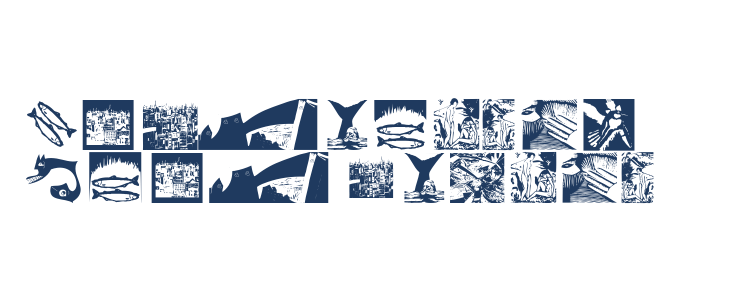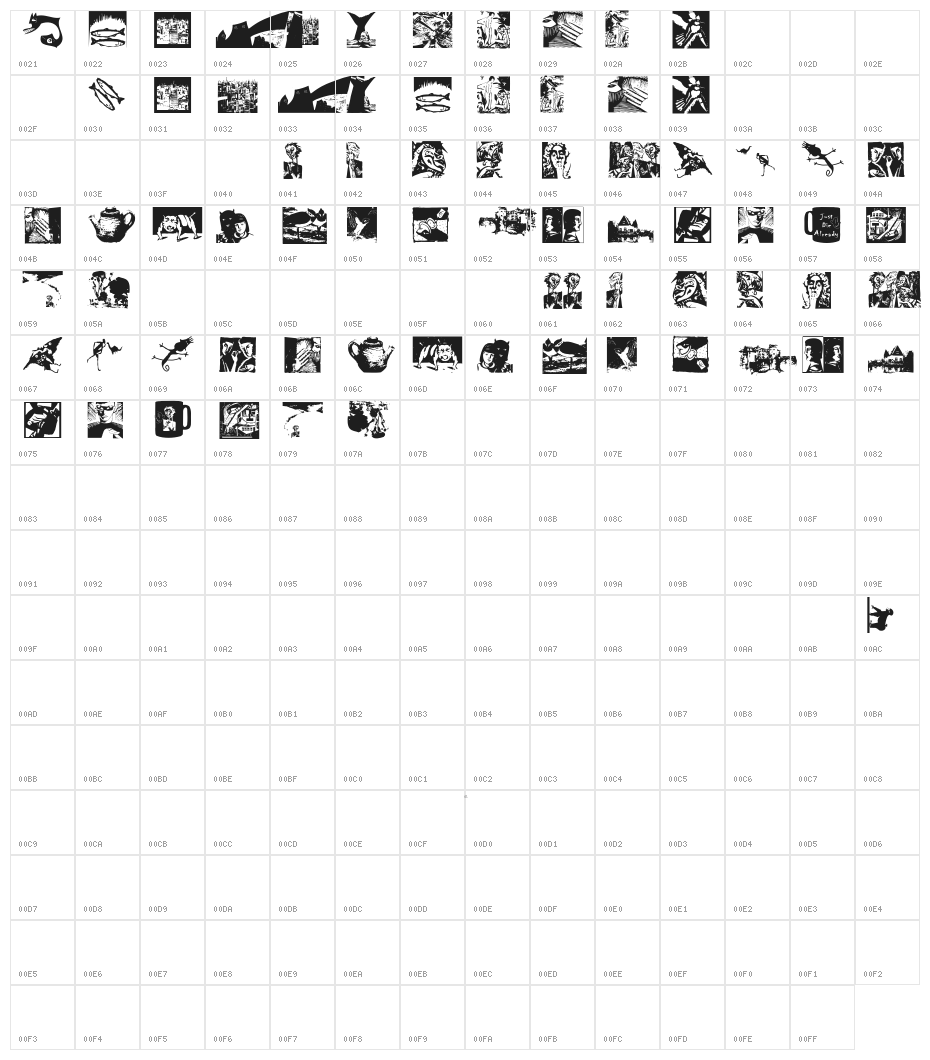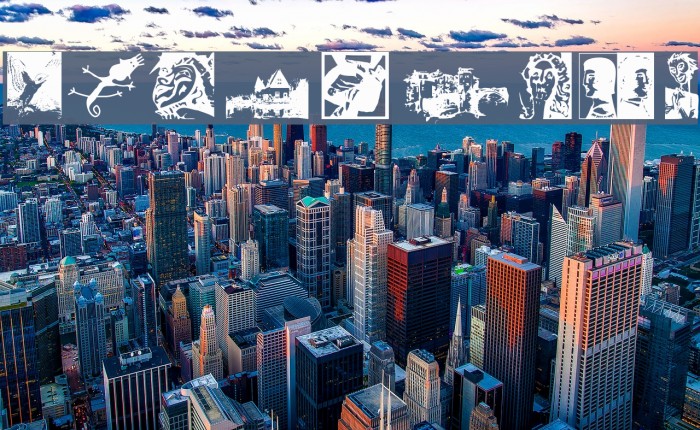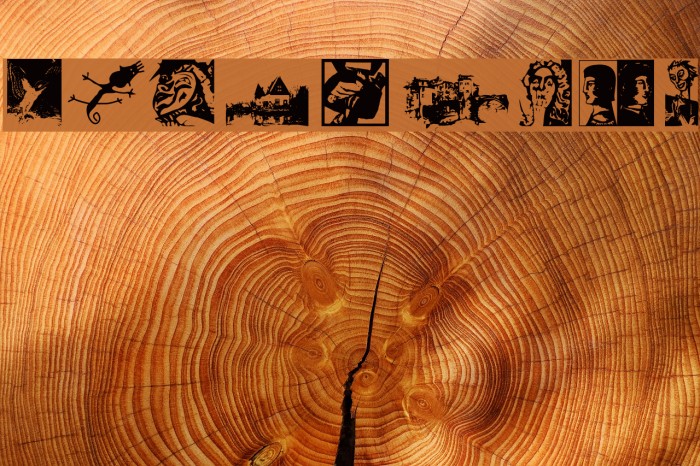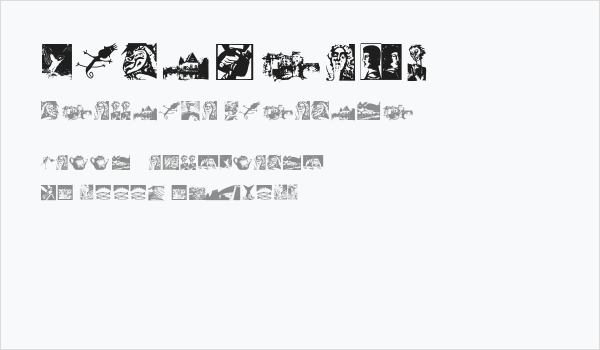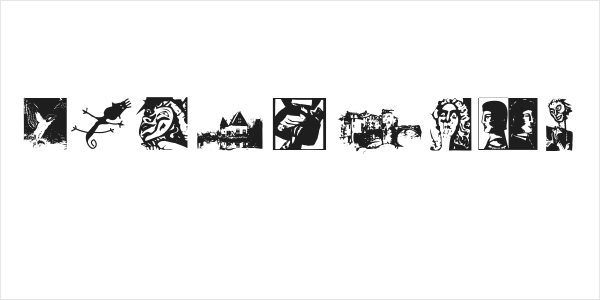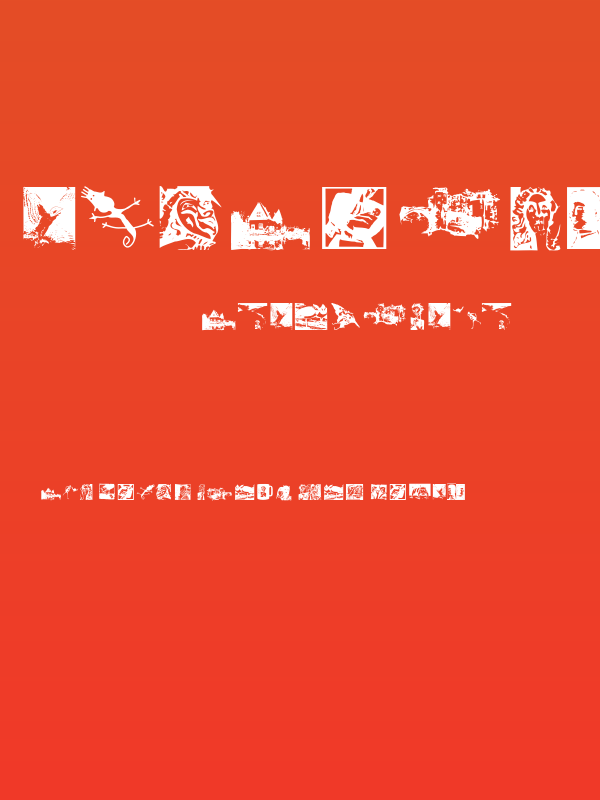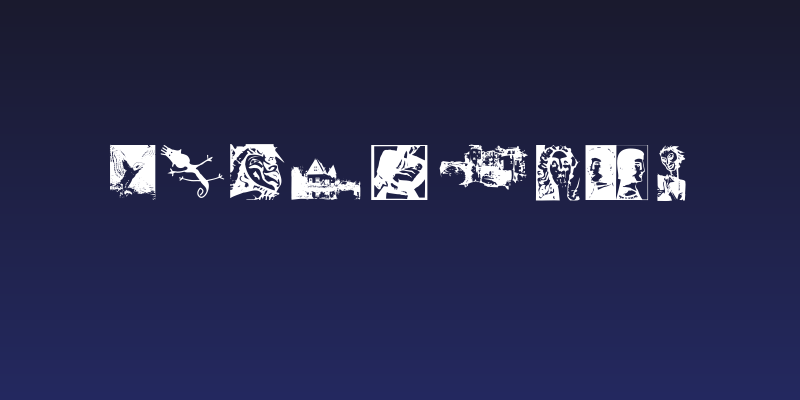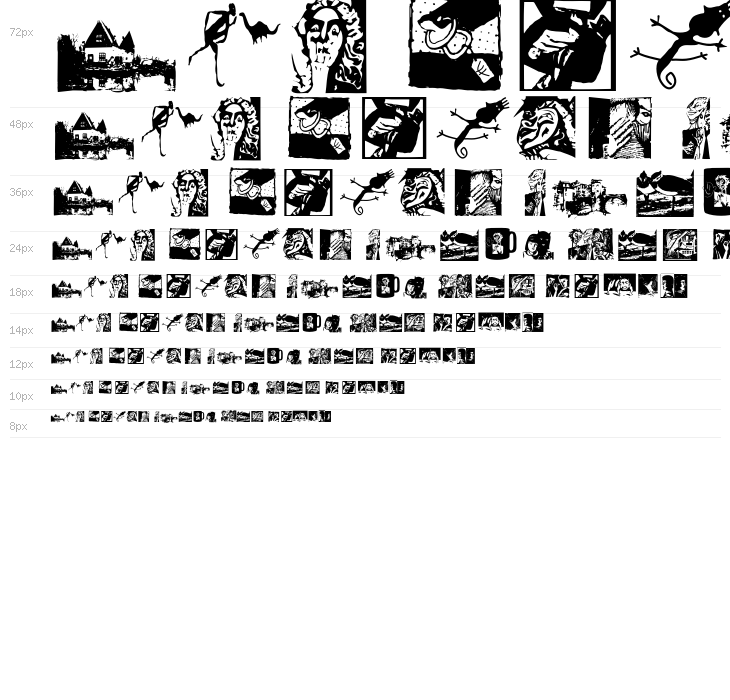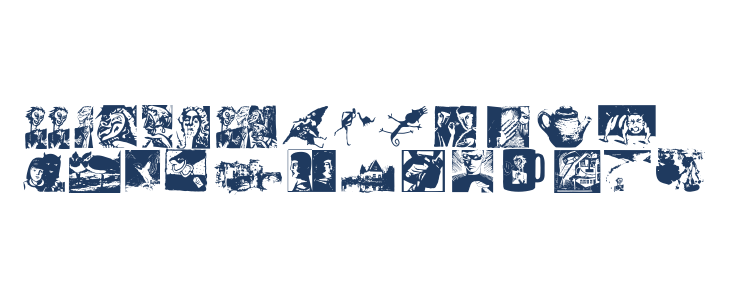
PicturesA Font
PicturesA Description
A highly decorative and illustrative font composed of detailed black-and-white images, each character represented by a unique drawing or scene rather than traditional letterforms. The glyphs feature a variety of subjects, including people, animals, objects, and landscapes, rendered in a woodcut or linocut style with strong contrasts and intricate linework.
| Overall Style | Decorative, Artistic, Illustrative |
| Use Case | Logos, Posters, Headlines, Artistic projects |
| Proposed Projects | Book covers, posters, art projects, creative branding, album artwork, themed event invitations. |